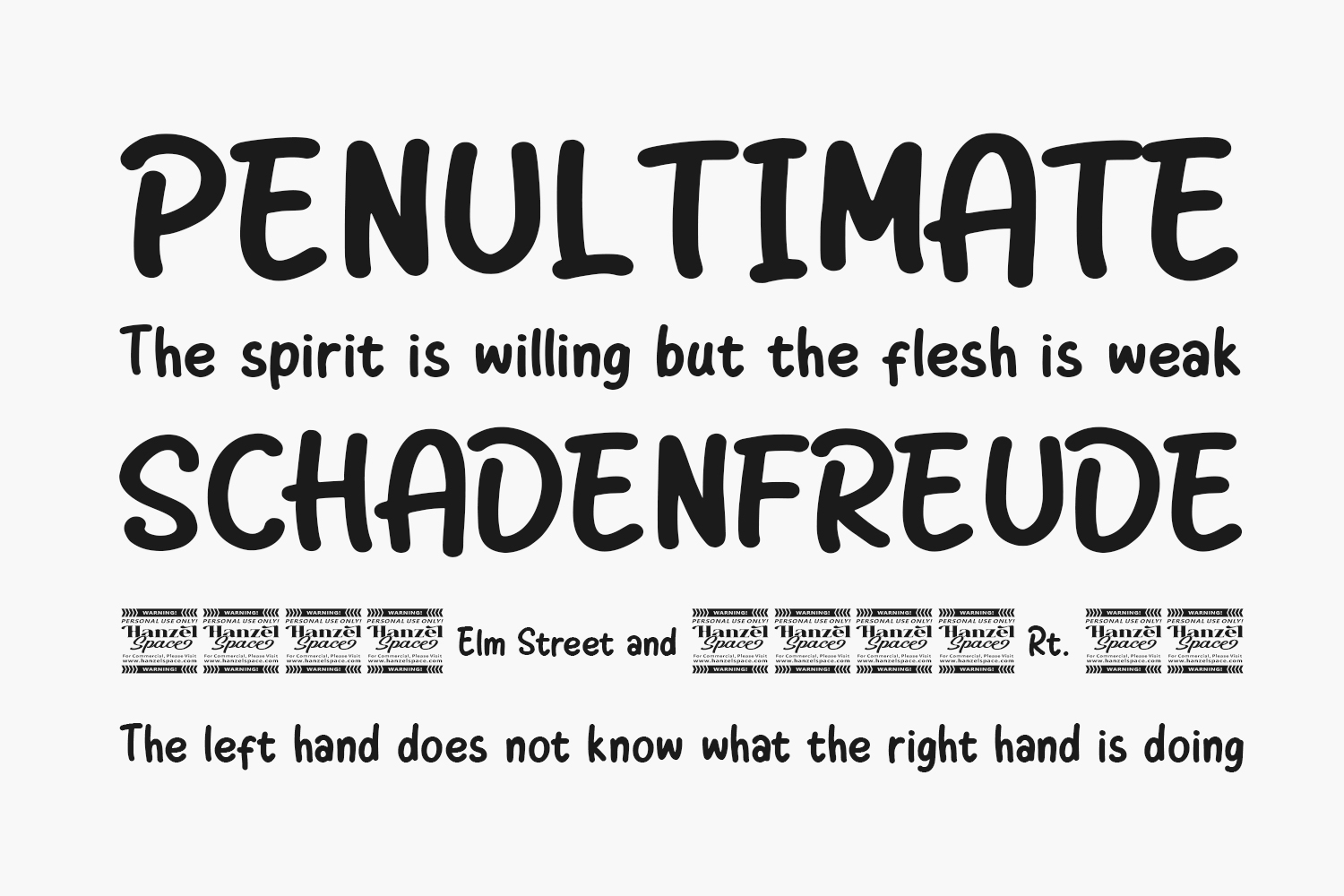
Just Squash Free Font is a cute and playful display font. It has a modern yet whimsical style and it will undoubtedly immerse your designs into a magical world. Just Squash Free Font was designed by Hanzel Space is a demo and free for personal use only. Please purchase the full version for commercial use.